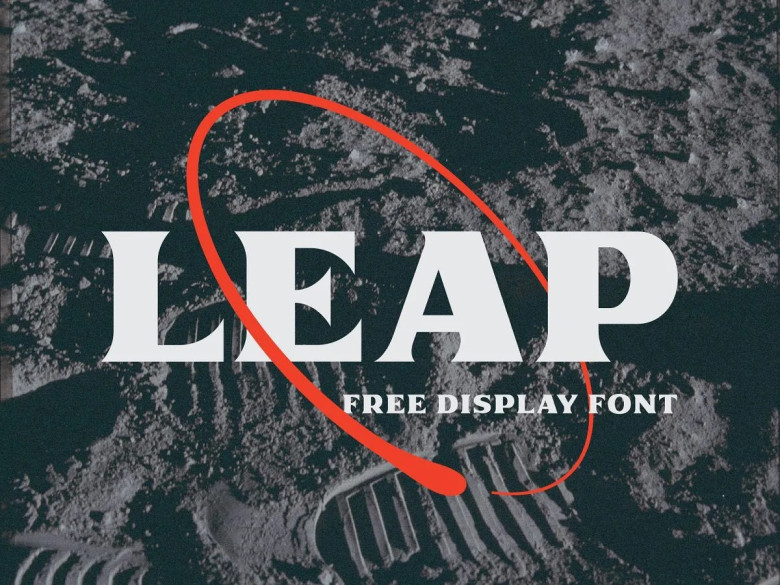
Leap Font
Leap is an absolutely free screen typeface. I recently took the first steps towards developing an editable font inspired by NASA’s iconic meatball design; Leap can now be downloaded freely. Please let me know your thoughts, share any awesome projects using Leap with me, and don’t be shy in sharing what incredible things can be made using Leap!
Leap Display Font